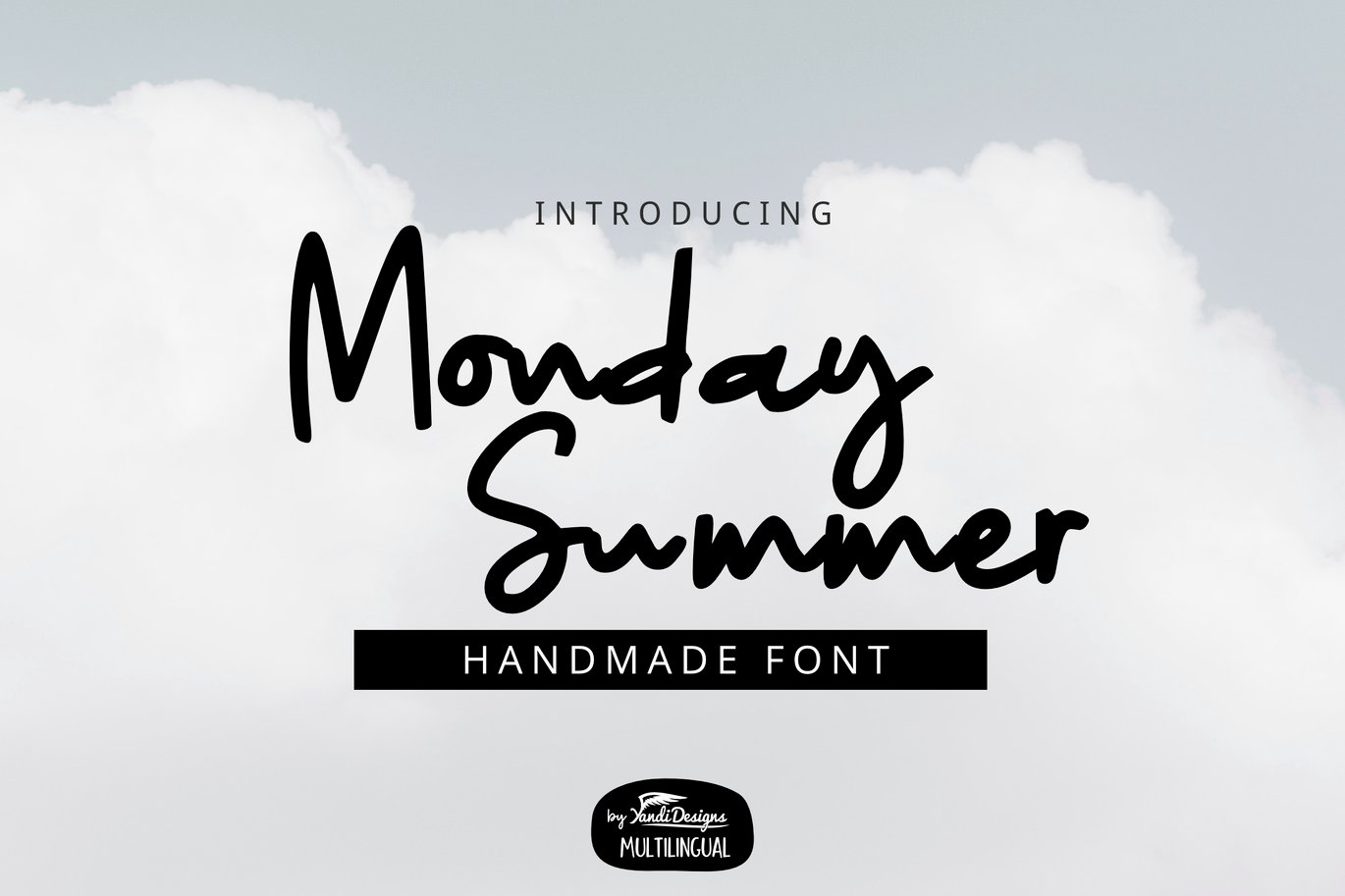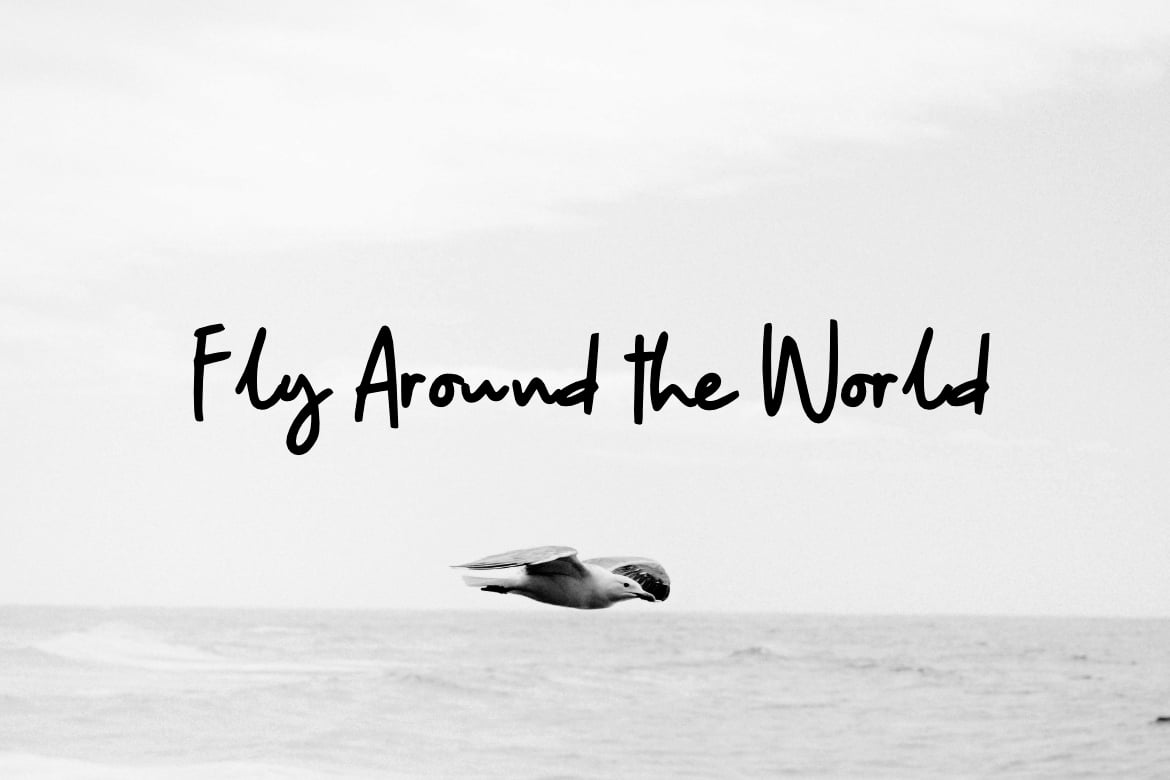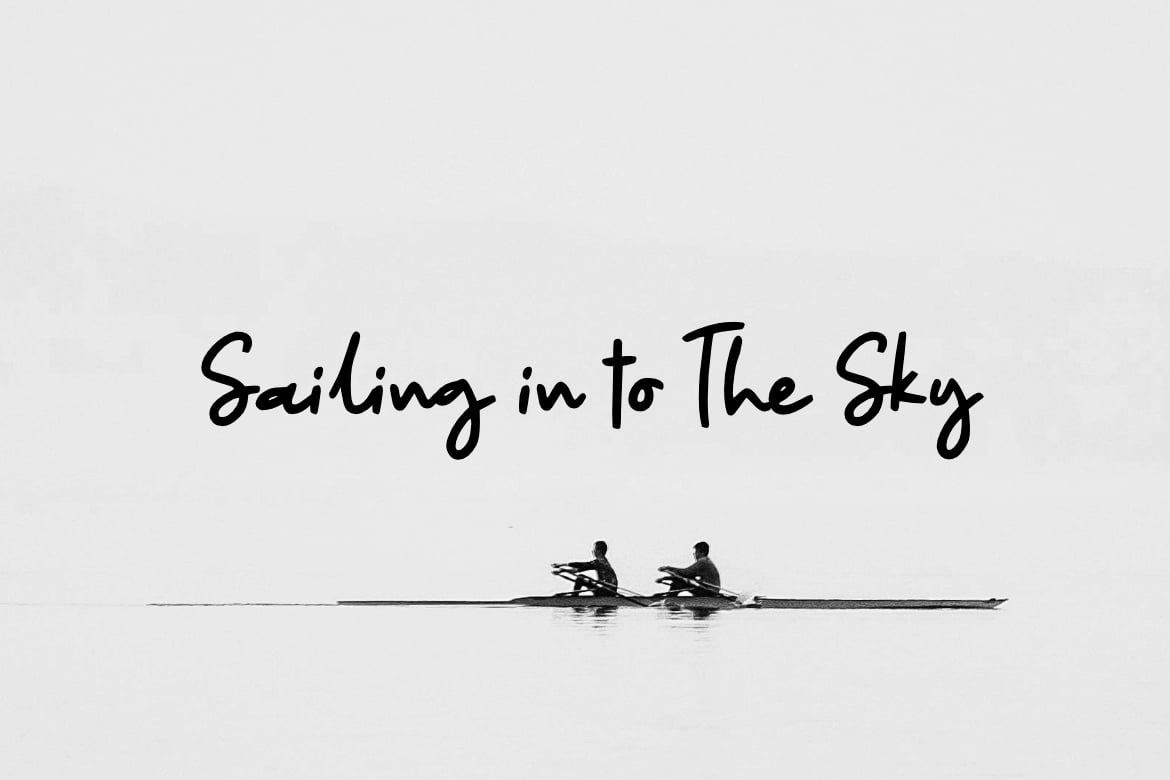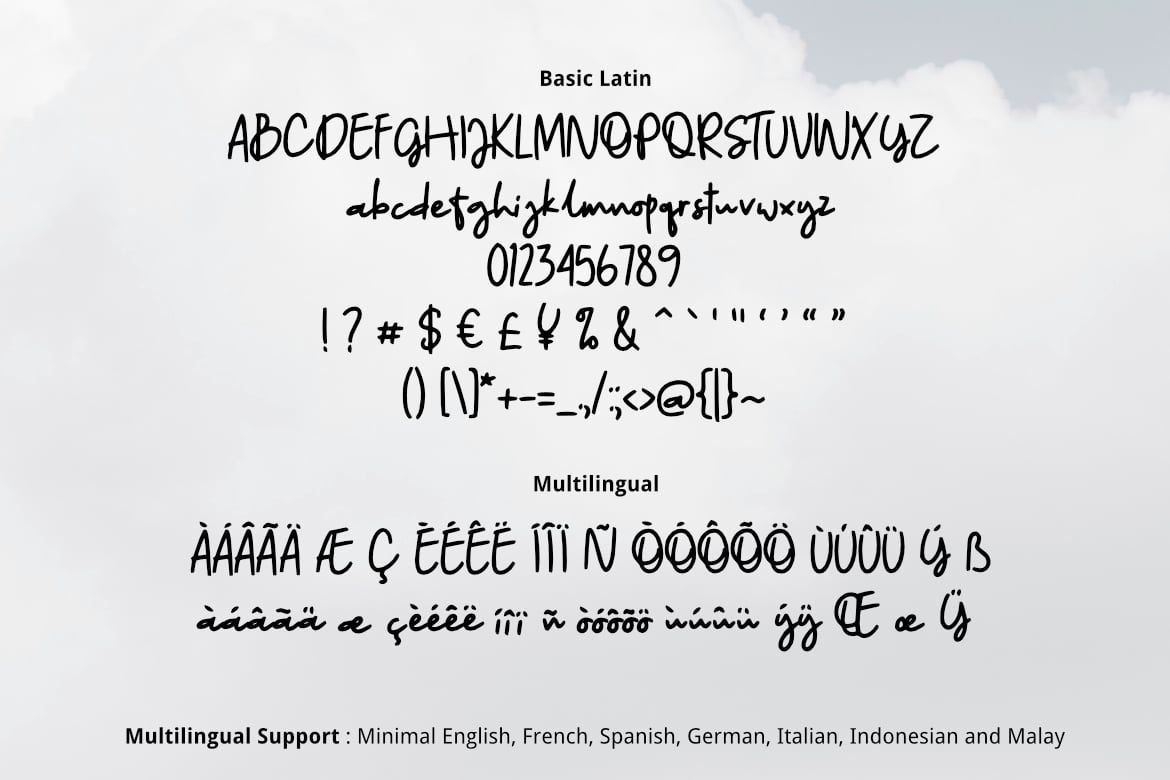
Monday Summer Font
Monday Summer is modern multipurpose handmade script font, suitable for many project children book, quotes, logo , heading , title etc.
Basic Latin (Standard English character , number, symbol)
Multilingual Support (minimal English, French, Spanish, German, Italian, Indonesian, Malay)